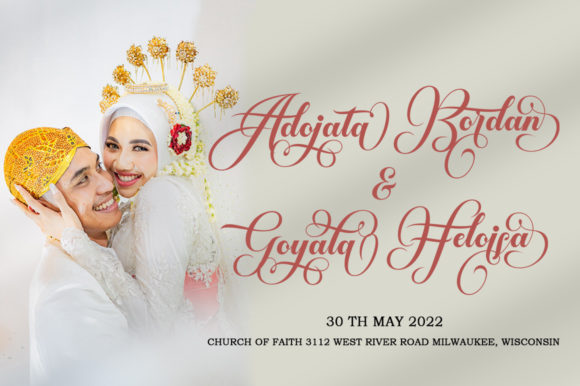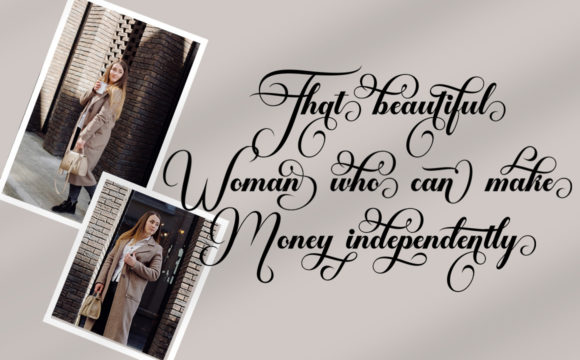
Koodgeta Font
db-ku.com - Script & Handwritten -- Koodgeta is a lovely script font featuring charming, playful characters that seem to dance along the baseline. This font is PUA encoded which means you can access all glyphs and swashes with ease!